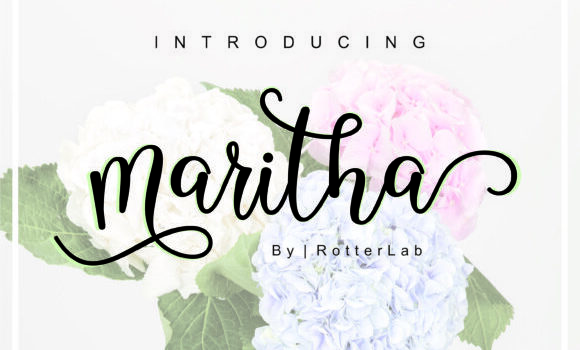
maritha
Maritha Script Font - Featured Image
Maritha Script Font – Free Download Introduction to Maritha Script Font Maritha Script is a new modern script font with an irregular baseline and a trendy and feminine style. 📸 Preview Gallery 6 images 📌 Product Name Maritha Script Font